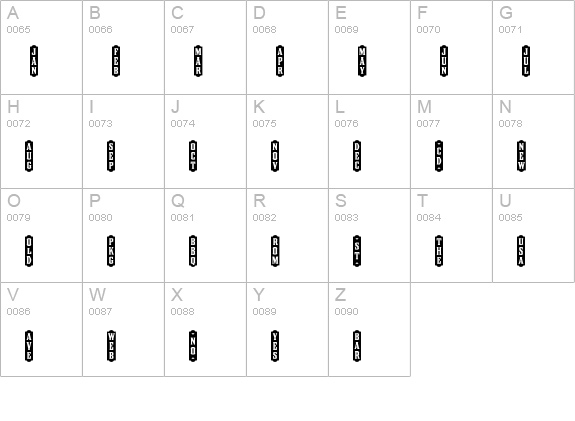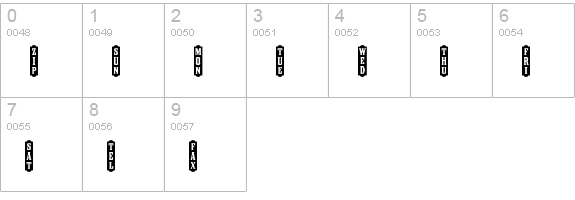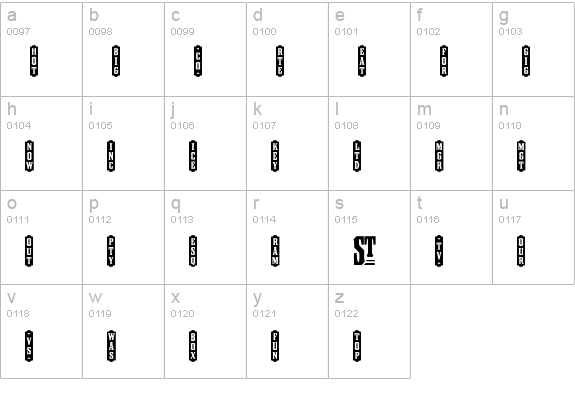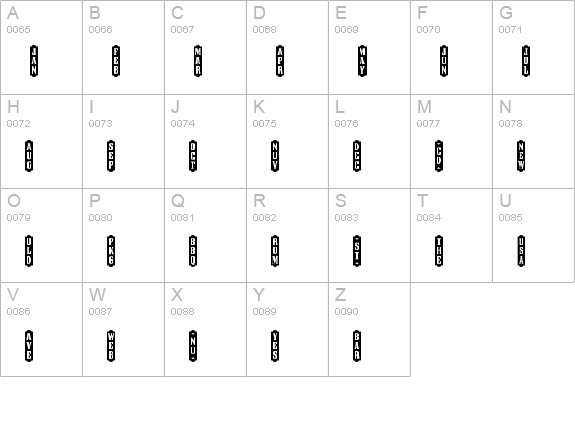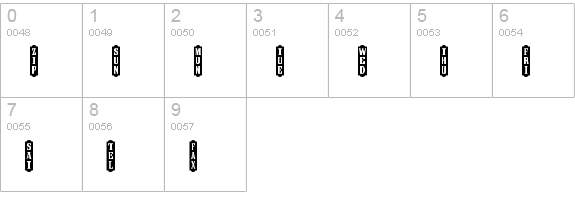
CouncilWordLogosOne Font Details
CouncilWordLogosOne is a versatile and modern display font that exudes sophistication and elegance. With its unique design and clean lines, this font is perfect for creating eye-catching logos, headlines, and branding materials. The sleek and professional appearance of CouncilWordLogosOne makes it a top choice for designers looking to make a bold statement. The best part? CouncilWordLogosOne is available for free download at FontsMarket.com. This means that you can easily access this premium font without any cost, making it an excellent option for both personal and commercial projects. Embrace the creativity and style that CouncilWordLogosOne offers, and elevate your designs to the next level with this exceptional font.